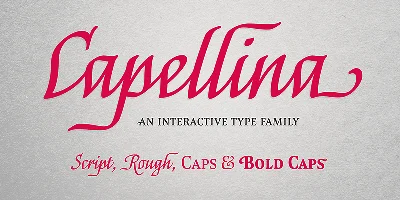
Capellina Font
The Capellina Font is excellent for delicate feminine design projects including elegant wedding invitations, luxury fashion branding, boutique beauty campaigns, romantic greeting cards, upscale jewelry advertisements, sophisticated lifestyle magazines, refined cosmetics packaging, and graceful cultural event materials. This refined typeface brings feminine elegance and sophisticated charm to any design project requiring delicate, graceful typography with timeless romantic appeal.
What makes Capellina Font so exciting is its perfect embodiment of feminine sophistication with graceful, flowing letterforms that capture the essence of romantic elegance and refined beauty. The letters feature delicate proportions with elegant curves that create an immediate sense of grace and sophisticated femininity. This distinctive elegant character makes it perfect for brands and projects that want to communicate refined beauty, romantic sophistication, and the timeless appeal of feminine elegance and graceful design.
The Capellina Font family typically includes multiple weights from light to bold, complete with elegant italic variations and sophisticated character sets. Many versions feature romantic ligatures, feminine ornaments, and graceful design elements that enhance its authenticity for luxury beauty and fashion applications.
Whether you're designing for luxury beauty brands, high-end fashion labels, or elegant event planning, Capellina Font provides the perfect solution for projects that need to convey feminine sophistication and romantic elegance. This font transforms standard text into graceful designs that immediately communicate refined beauty, sophisticated femininity, and the timeless appeal of elegant romantic expression to audiences seeking luxury experiences and refined aesthetic sophistication.